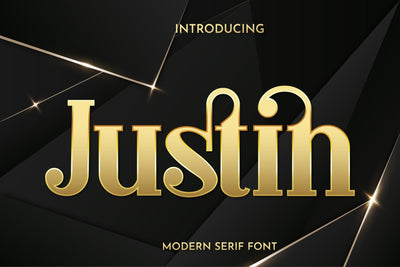
Justin Font
Justin Font is the perfect choice for modern or vintage projects that require a touch of sophistication. This font is designed to be easy to read, making it suitable for a variety of applications, including blog posts, logos, branding, ads, invitations, greeting cards, planners, photo albums, decorations, and much more.